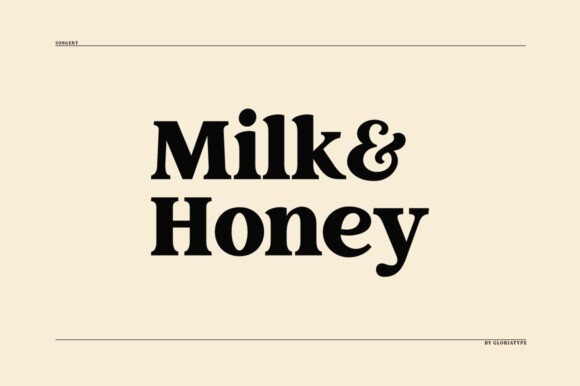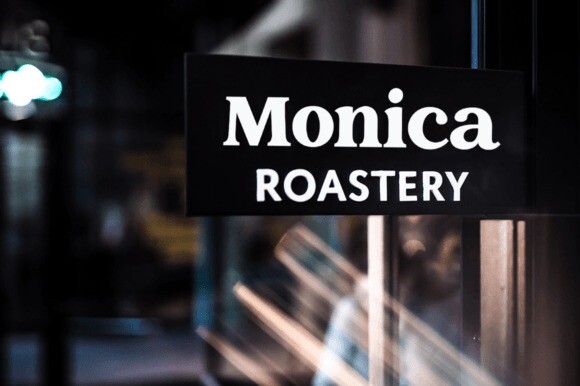
Songent Font
Songent – a fancy and beautiful editorial serif with a luxurious look. It’s a versatile font that looks great in big and small sizes.
This font has a wide variety of uses, including editorial projects, logo design, branding, product packaging, magazine headers, etc. It’s ideal for any graphic design project or as a stylish text overlay to any image.